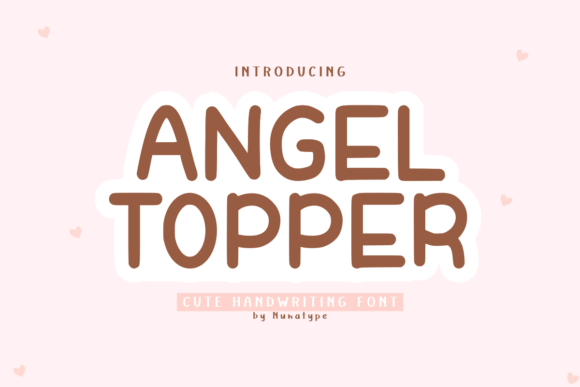
The Angel Topper Font: A Sassy and Sarcastic Handwritten Delight
Have you ever been in the middle of a design project, and suddenly, you just can’t seem to find the right font? I recall a particularly frustrating moment when I was working on a birthday card design, and my client specifically asked for a “fun and adorable” font. After scouring through hundreds of fonts, I stumbled upon the Angel Topper font, and it instantly became the perfect fit. In this article, we’ll dive into the world of Angel Topper, exploring its features, uses, and what makes it a fantastic addition to any design project.
A Personal Review: What I Love About Angel Topper
As a designer, I can confidently say that Angel Topper has become one of my go-to fonts for various projects. Here’s what I love about it:
• ✨ Rounded and friendly look: Angel Topper has a unique, handwritten charm that instantly adds a touch of warmth to any design.
• ✅ Perfect for casual projects: Whether it’s a journal, planner, or sticky note, Angel Topper is ideal for designs that require a fun and relaxed vibe.
• 💕 Great for kid-friendly designs: The font’s playful nature makes it an excellent choice for birthday and baby shower designs, greeting cards, and other projects aimed at children or families.
While Angel Topper is an excellent font, it’s not without its quirks:
• 🤔 Limited use for formal projects: Due to its casual nature, Angel Topper might not be the best fit for formal designs, such as business cards or professional documents.
• ⚠️ Some letters may appear similar: As with any handwritten font, some letters might appear similar, which can make it challenging to read in certain contexts.
One of the best things about Angel Topper is its support for OpenType features and glyphs. These features allow you to customize your text and add a unique touch to your designs. Some common OpenType features include:
• Stylistic alternates: These allow you to switch between different versions of a letter or number.
• Ligatures: These combine two or more letters into a single glyph.
• Swashes: These add decorative flourishes to your text.
The Designer Inspiration Behind Angel Topper
While the true story behind Angel Topper’s creation may be unknown, it’s easy to imagine that the designer was inspired by the playful, handwritten fonts found in children’s books and playful DIY projects. Perhaps the designer wanted to create a font that would bring a smile to people’s faces and add a touch of whimsy to their designs.
What type of projects is Angel Topper best suited for? Angel Topper is perfect for casual designs, such as journals, planners, sticky notes, birthday and baby shower designs, greeting cards, and DIY projects.
Is Angel Topper a script font? No, Angel Topper is a handwritten font with a unique, rounded look.